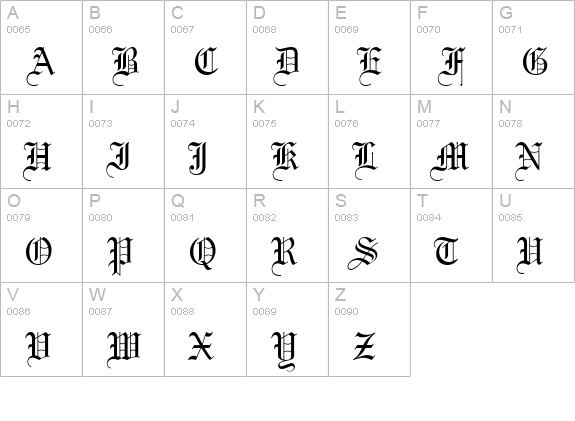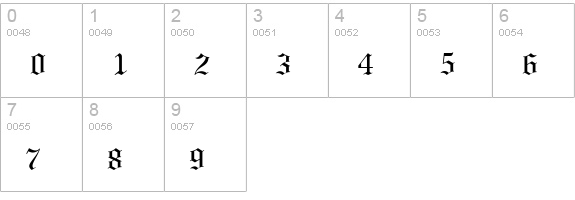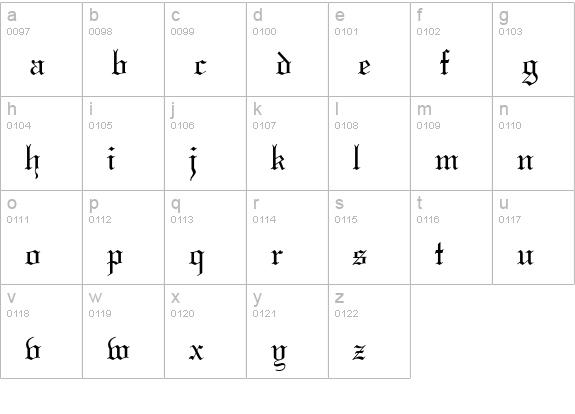
Gothic 57 Condensed Normal Font Details
Gothic 57 Condensed Normal is the standard, neutral, condensed-width variant in the Gothic typeface family \xE2\x80\x94 well suited to general body text, paragraphs, and standard typographic work.
Gothic 57 Condensed Normal font is a striking and elegant typeface that exudes a sense of sophistication and timeless charm. Its condensed form adds a touch of modernity while maintaining a classic Gothic aesthetic. The sharp, angular letterforms and precise spacing make this font perfect for creating impactful headlines, titles, and logos. What makes Gothic 57 Condensed Normal font even more appealing is that it is available for free download at FontsMarket.com. Whether you are a designer looking to add a touch of elegance to your projects or a typographer seeking a versatile typeface for various design applications, this font is sure to meet your needs. Download Gothic 57 Condensed Normal font now and elevate your designs with its unique blend of tradition and contemporary style.